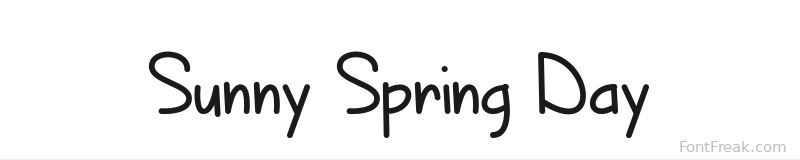
SunnySpringDay
Sunny Spring Day
SunnySpringDay is a delightful display font designed by Misti Hammers, exuding a cheerful, handwritten style that brings warmth and joy to any project. This font is categorized as a decorative typeface, characterized by its playful curves and friendly demeanor. The stroke weight is moderate, providing a balanced yet lively appearance, while the contrast remains low, ensuring easy readability. The open spacing between the letters adds to its airy feel, making it ideal for a variety of applications.
This font shines in scenarios where a touch of whimsy is desired. It is perfect for wedding invitations, where its charming style can enhance the romantic theme. Additionally, SunnySpringDay is an excellent choice for children's book covers, adding a playful element that appeals to young readers. Restaurant menus can also benefit from this font, as its inviting nature can make dishes appear more appealing. Furthermore, it serves well in social media graphics, helping content creators capture attention with its vibrant personality.